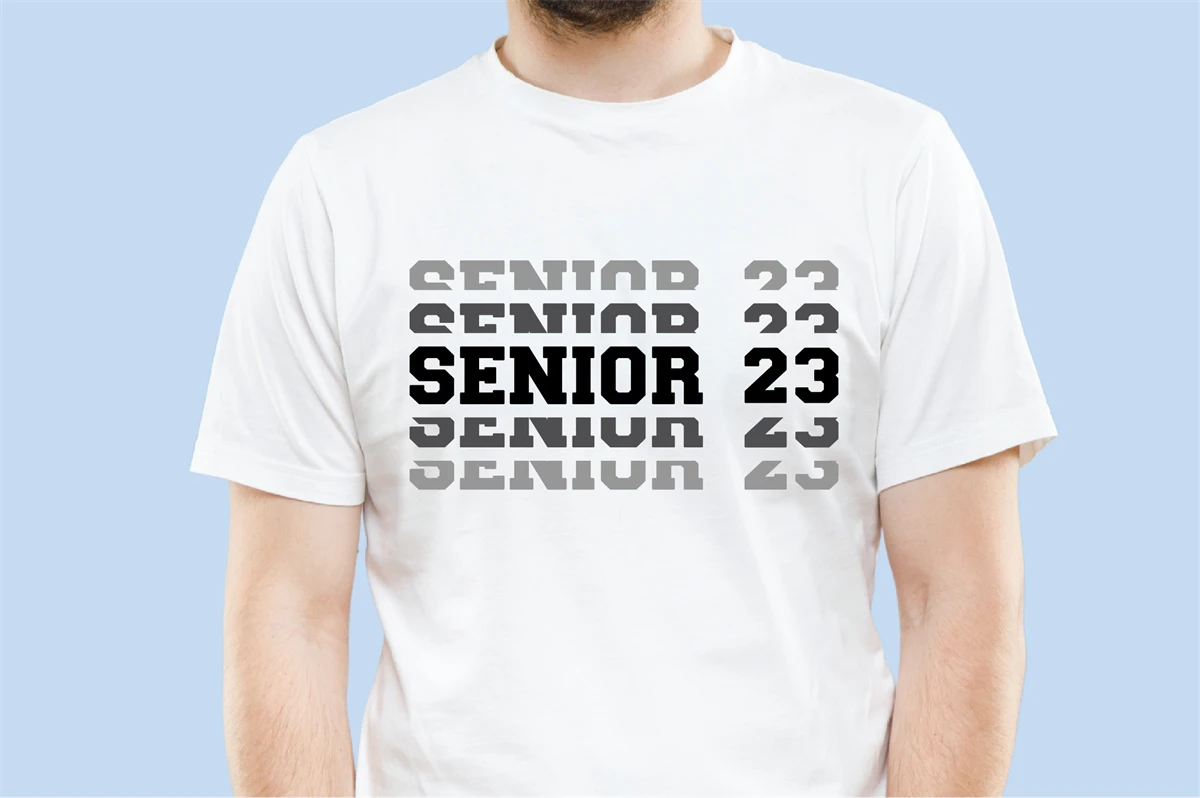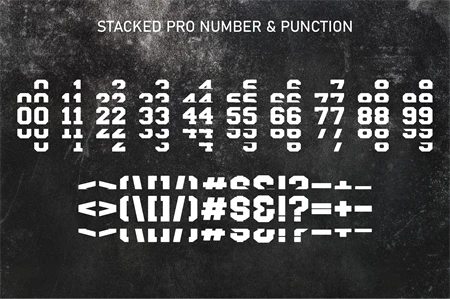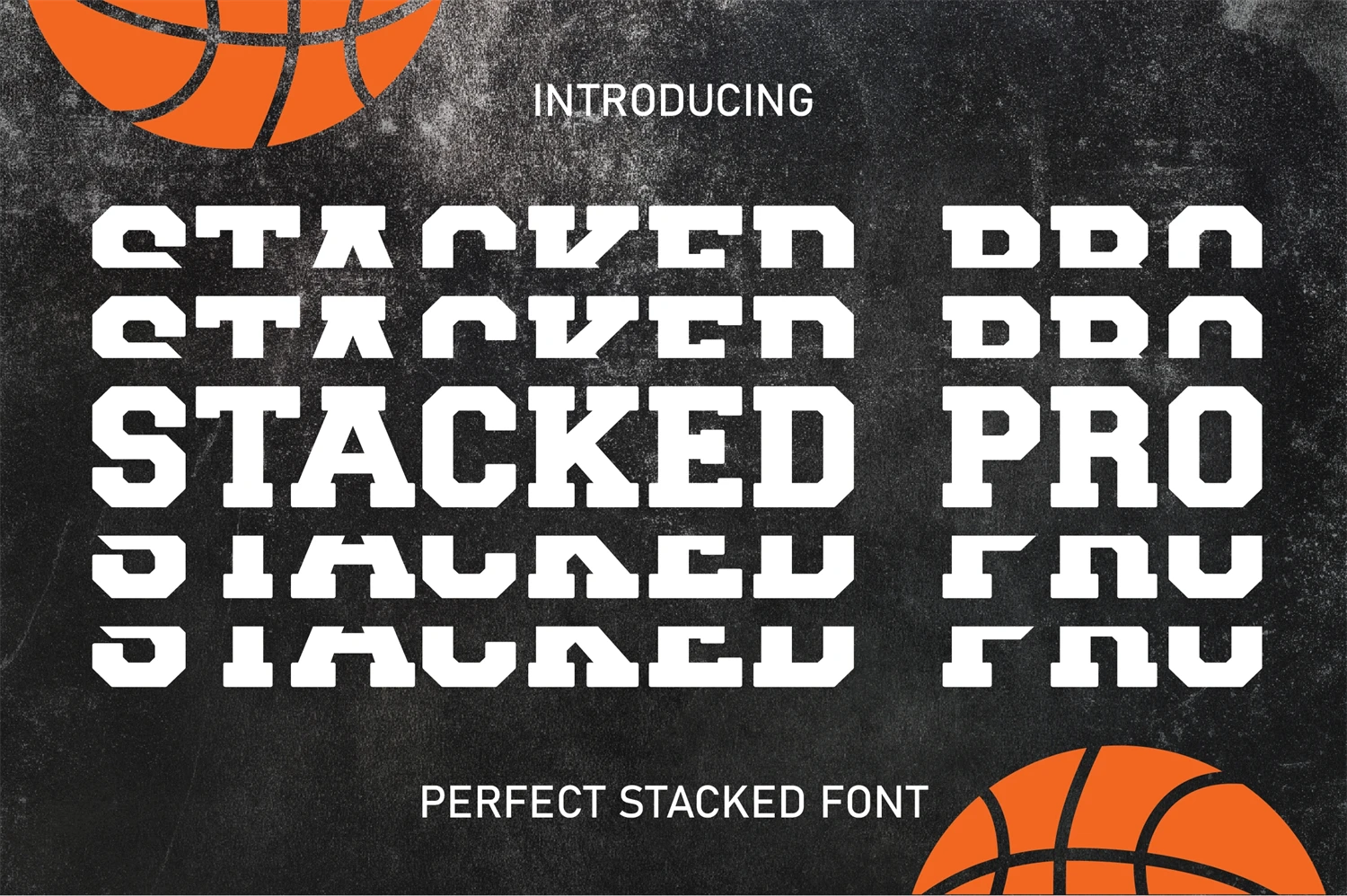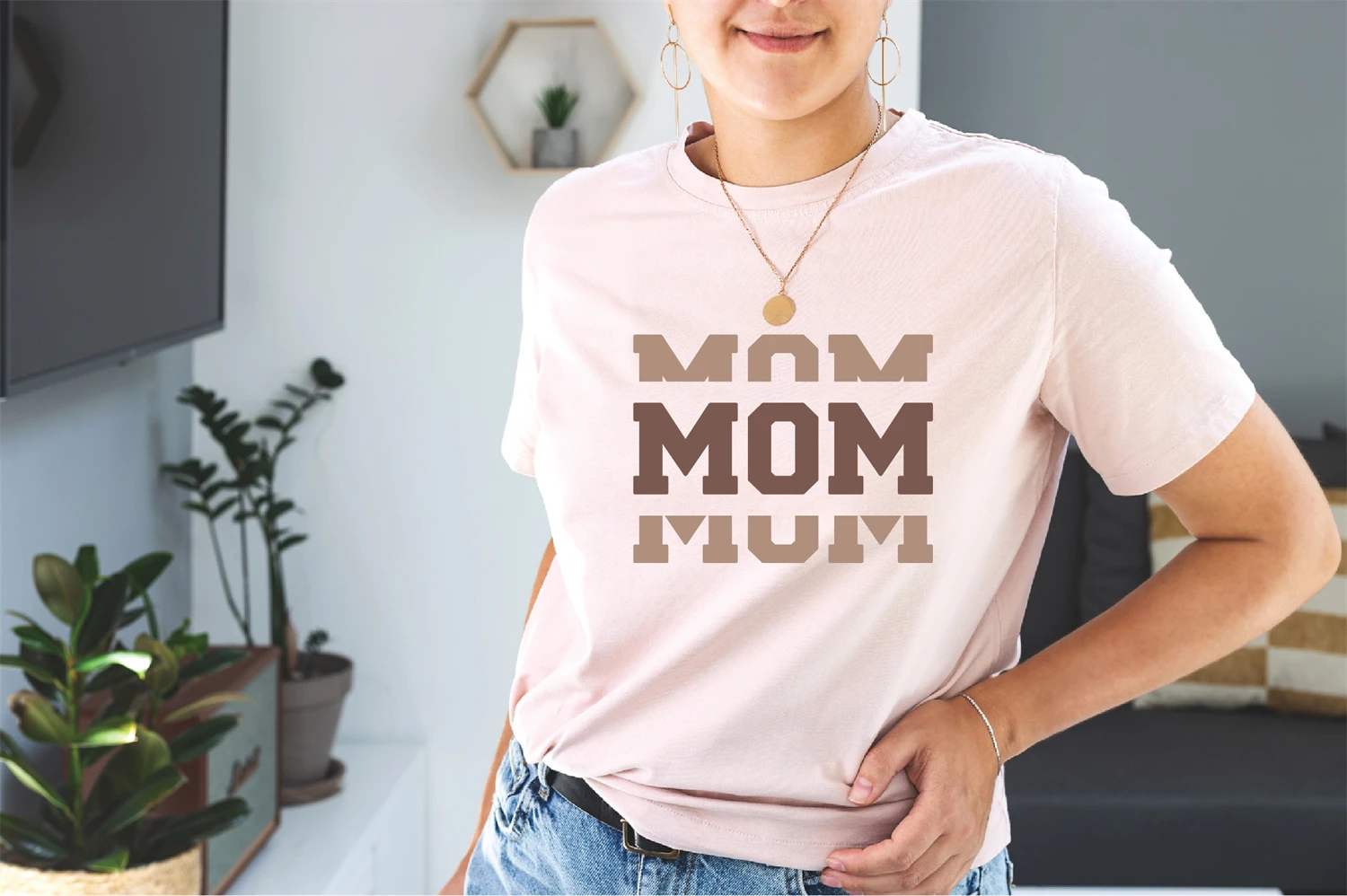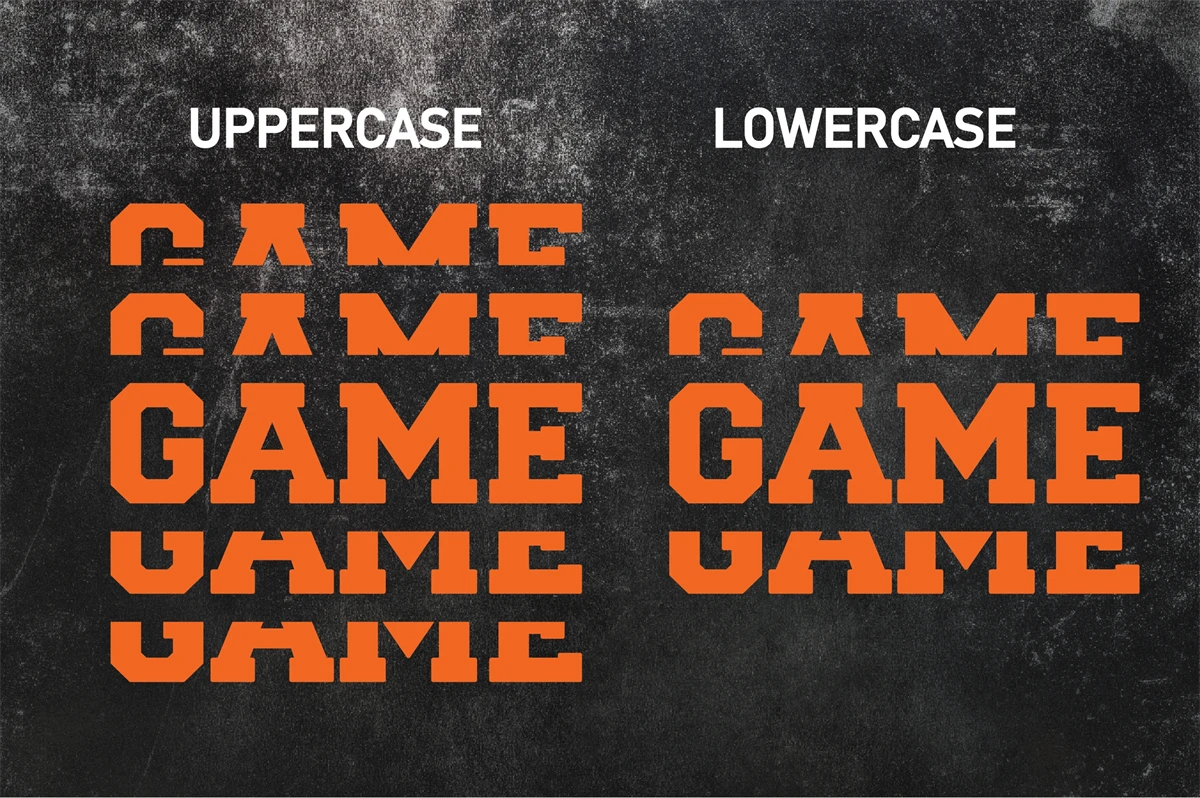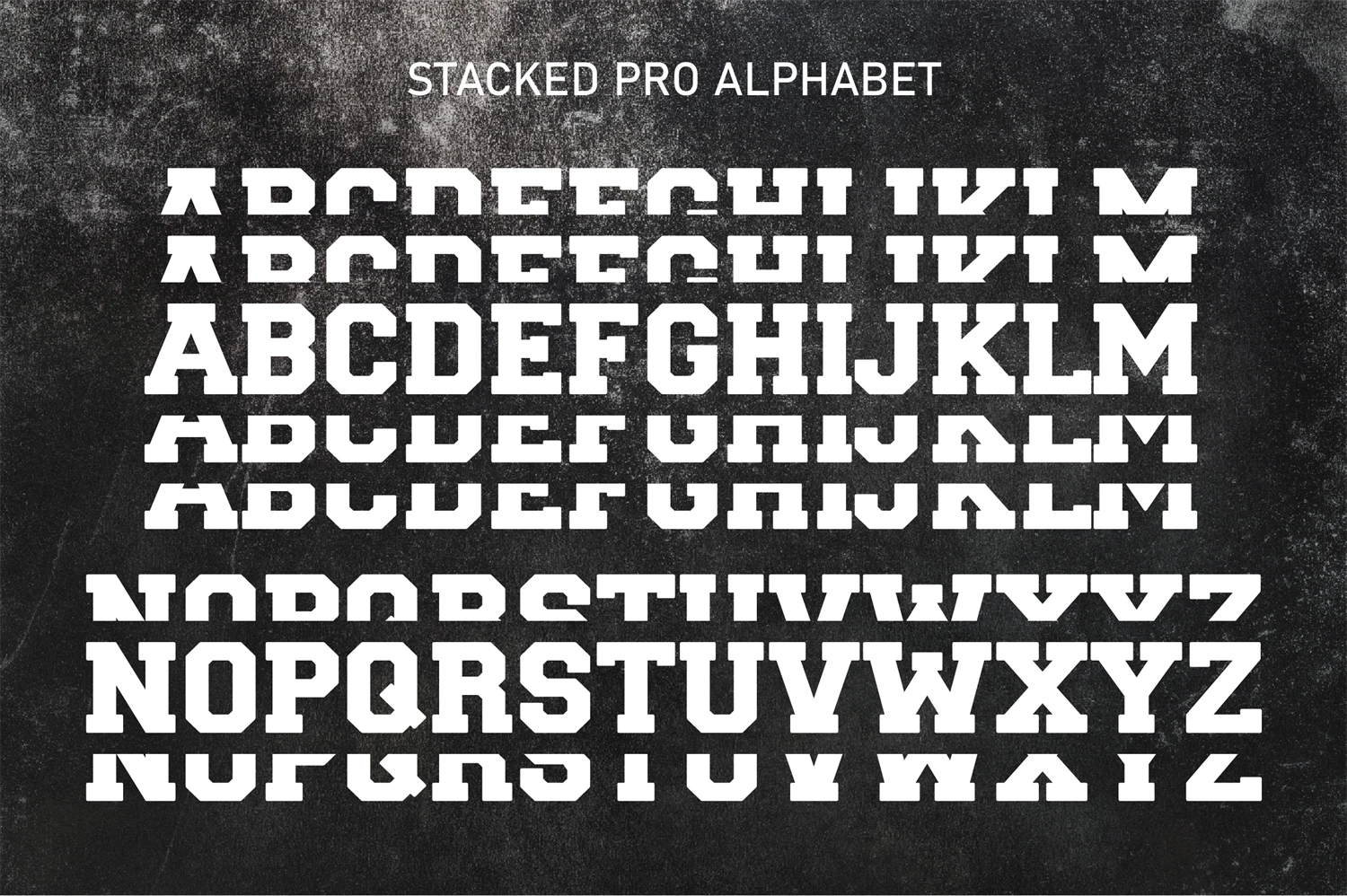
Stacked Pro is a sport-stacked style. Easy to create design sport shirt name team, logo, head title. This font is PUA encoded which means you can access all of the amazing glyphs and ligatures with ease!